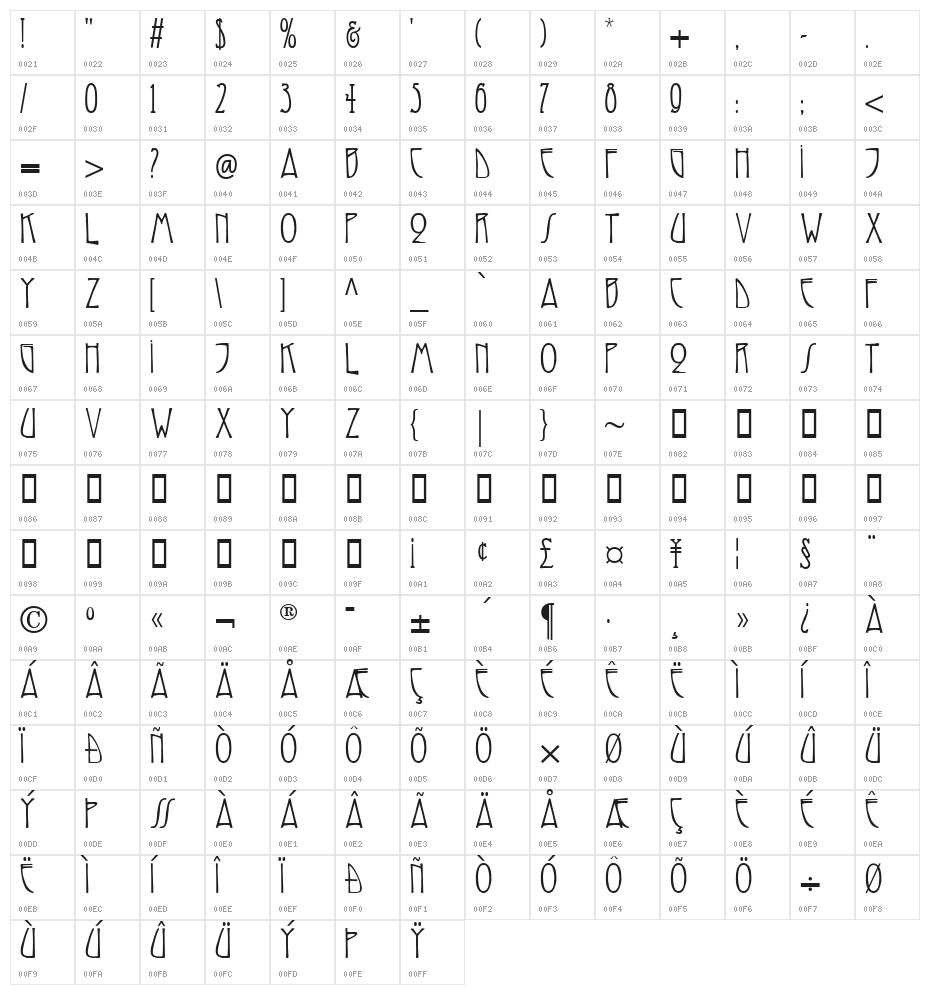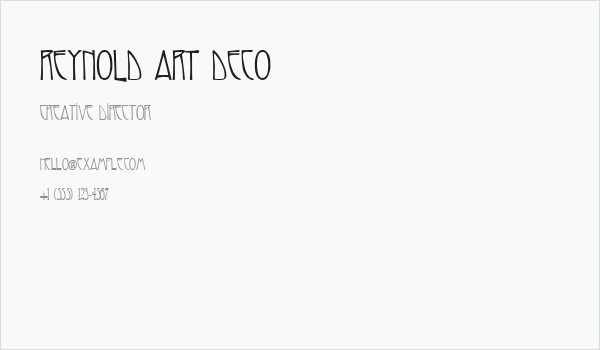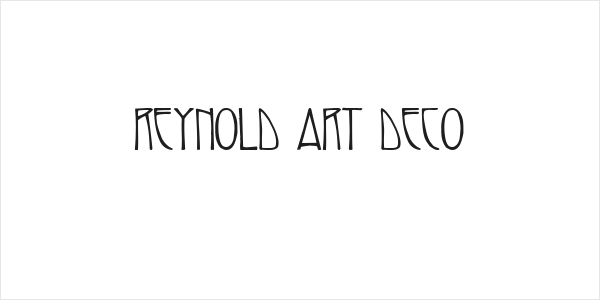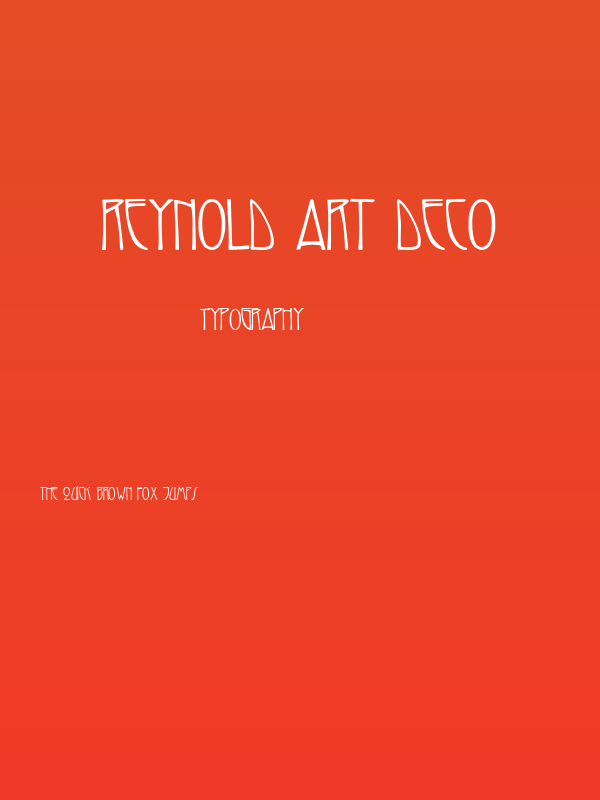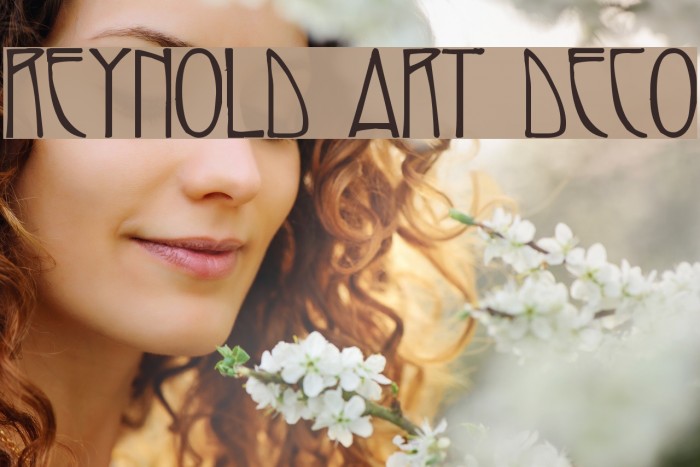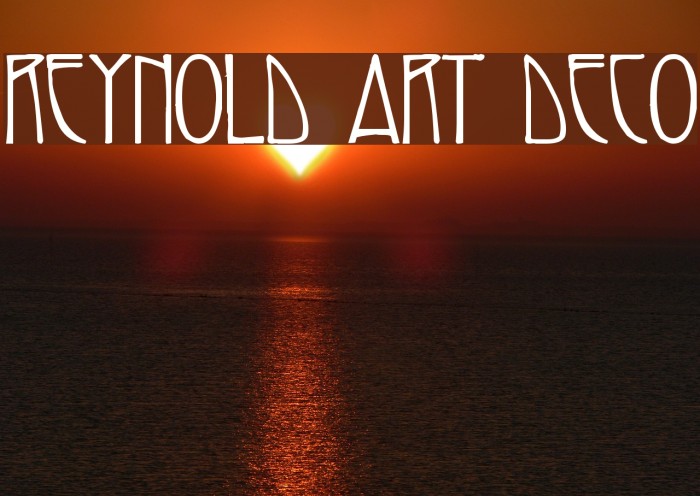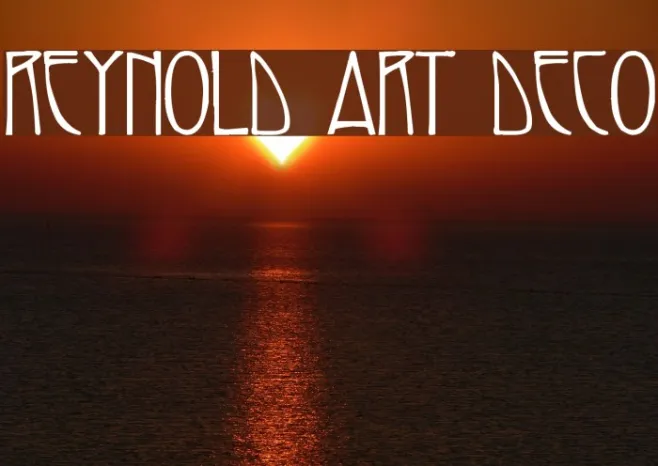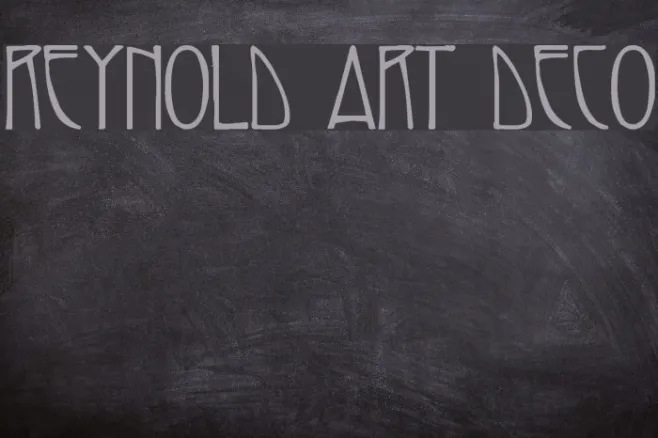
Reynold Art Deco Font
Reynold Art Deco Description
This font embodies the elegance and geometric precision characteristic of the Art Deco movement. It features elongated, narrow letterforms with a distinct vertical emphasis, creating a sophisticated and streamlined appearance. The uppercase letters are particularly striking, with unique angular elements that add a touch of flair. The lowercase letters maintain a consistent style, complementing the uppercase with their own subtle curves and angles. Numbers and special characters are designed with the same attention to detail, ensuring a cohesive look across all text. The overall aesthetic is both vintage and modern, making it versatile for various design applications.
| Width | Condensed |
| Overall Style | Vintage, Modern |
| Proposed Projects | Ideal for branding, luxury product packaging, event invitations, and editorial design. |